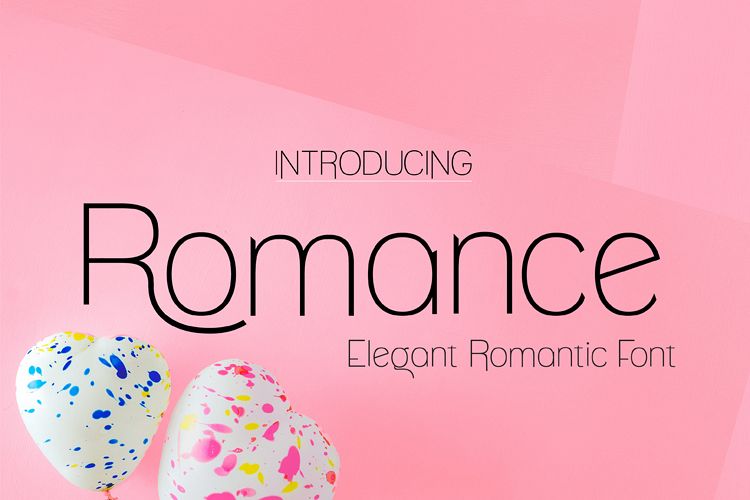
Romance
Romance is a Minimalist Modern Elegant vintage font with beautiful ligatures, tons of special alternative glyphs,multilingual support. It’s a very versatile font that works great in large and small sizes. Romance is perfect for branding projects, Logo design, Clothing Branding, product packaging, magazine headers, or simply as a stylish text overlay to any background image.